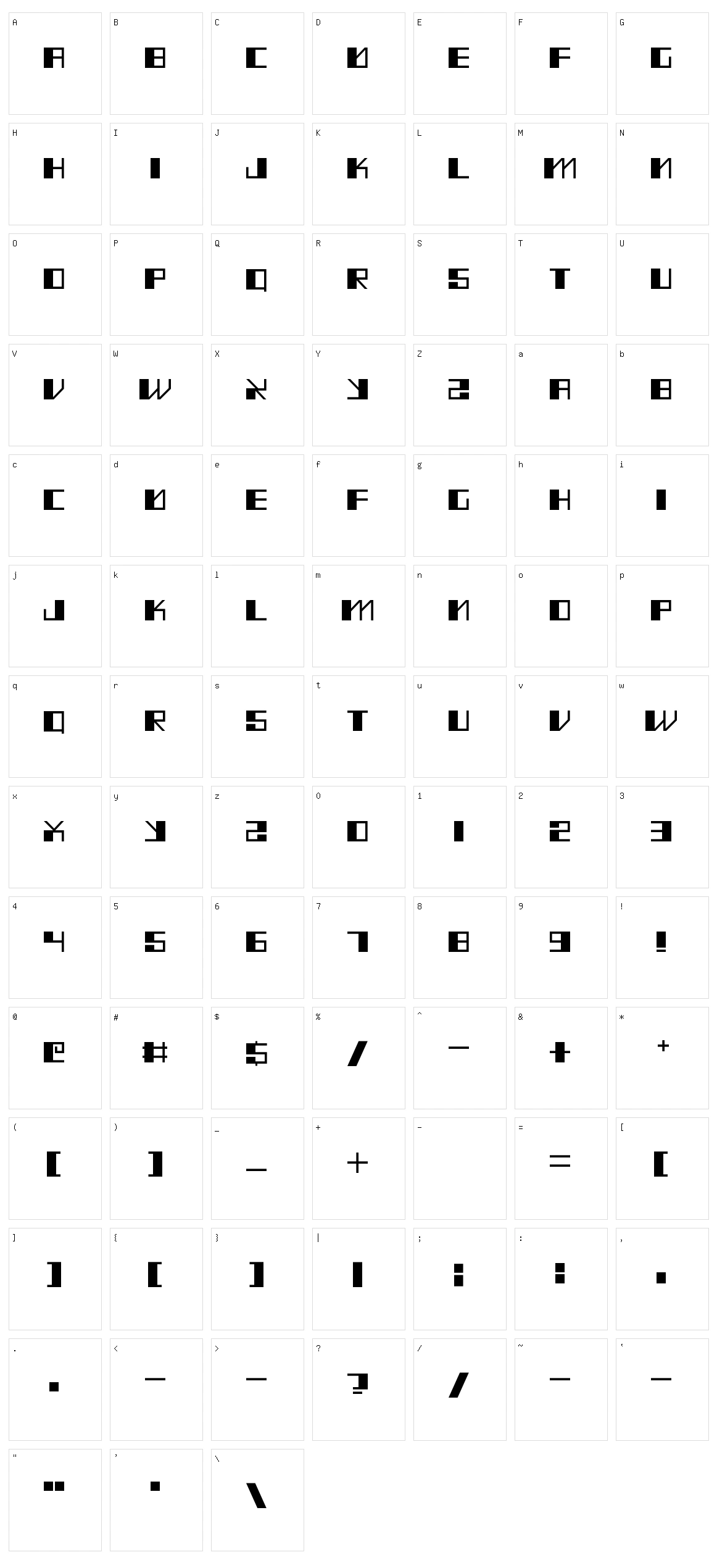
The free font Mad Meka is carefully designed by Hawtpixel, showcasing a thoughtful balance of creativity and usability and falls under the Square font style. When you download the ZIP file, it contains only 12.23 KB of font files, making it lightweight and quick to download. Please review the license details below to understand permitted usage and distribution rights. If license information is not available, we recommend using this font for personal projects only or contacting the author directly for commercial usage permissions.